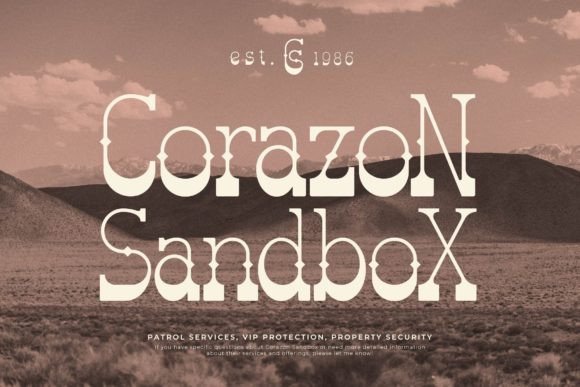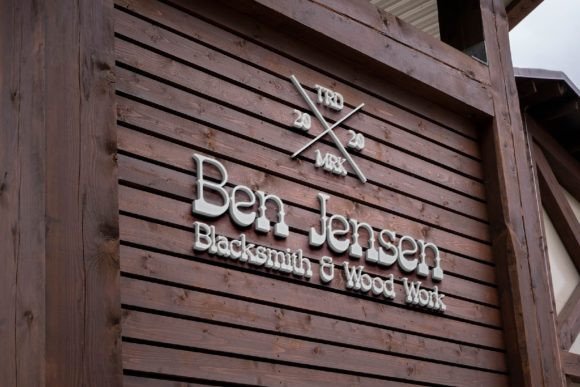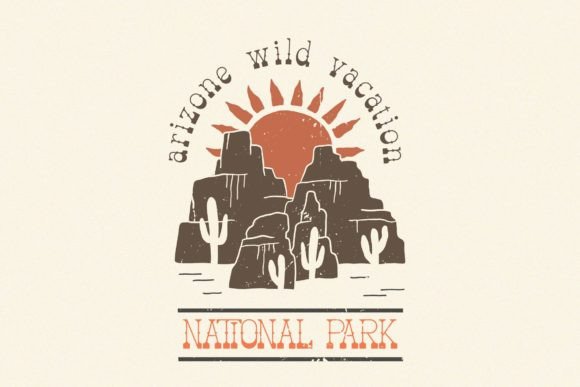
Introduction to Elsklemer Font
Have you ever stared at a blank canvas, trying to bring your creative vision to life, only to find the perfect font eludes you? It’s a frustrating moment that many designers can relate to. But what if you had the perfect font to elevate your design and bring your project to the next level? Enter the Elsklemer Font, a stunning Western Slab Serif that’s perfect for any creative project.
This versatile font is more than just a design resource – it’s a game-changer. With its high-quality design and transparent background, you can use it for a wide range of applications, from logos and branding projects to product packaging and homeware designs. And the best part? It’s available for free download, making it an invaluable asset for designers of all levels.
Key Features of Elsklemer Font
- High-quality design resource for creative projects, perfect for logos, branding, and typography
- Unique characteristics, including a modern and elegant aesthetic, making it ideal for a range of creative projects
Honest Review: Elsklemer Font
As a designer, I’m always on the lookout for high-quality design resources to elevate my creative projects. Recently, I came across the Elsklemer Font, which I’m excited to share my thoughts on.
- ✨ High-quality typography with a unique, modern feel
- ✨ Suitable for various design projects, from logos to brochures
One of the standout features of the Elsklemer Font is its transparent background, which makes it easy to layer and customize. Additionally, its high-quality design ensures that it looks great on a variety of devices and screen sizes.
- ⚠️ Not ideal for designs that require a bold, attention-grabbing font
Overall, I’m impressed with the Elsklemer Font’s high quality and versatility. While it may not be suitable for every design project, it’s an excellent choice for designers who want a modern, elegant font without breaking the bank.
Elsklemer Font is commonly used for creative projects such as branding, advertising, and graphic design. Its high-quality design and transparent background make it an ideal font for presentations, documents, and websites that require a professional and creative touch.